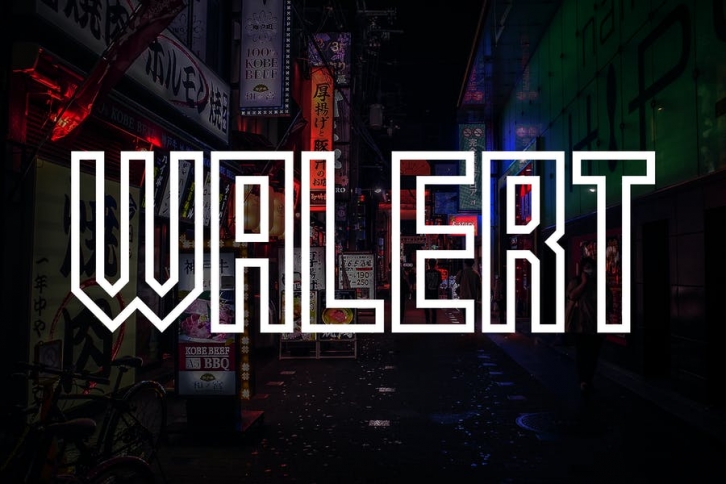
Introducing our new product ** WALERT Font ** - Modern Font
** WALERT Font ** - Modern Font is a bold and authentic display font. The font is suitable for any branding project like logo, t-shirt printing, esport, and many more. outstanding in a wide range of contexts.